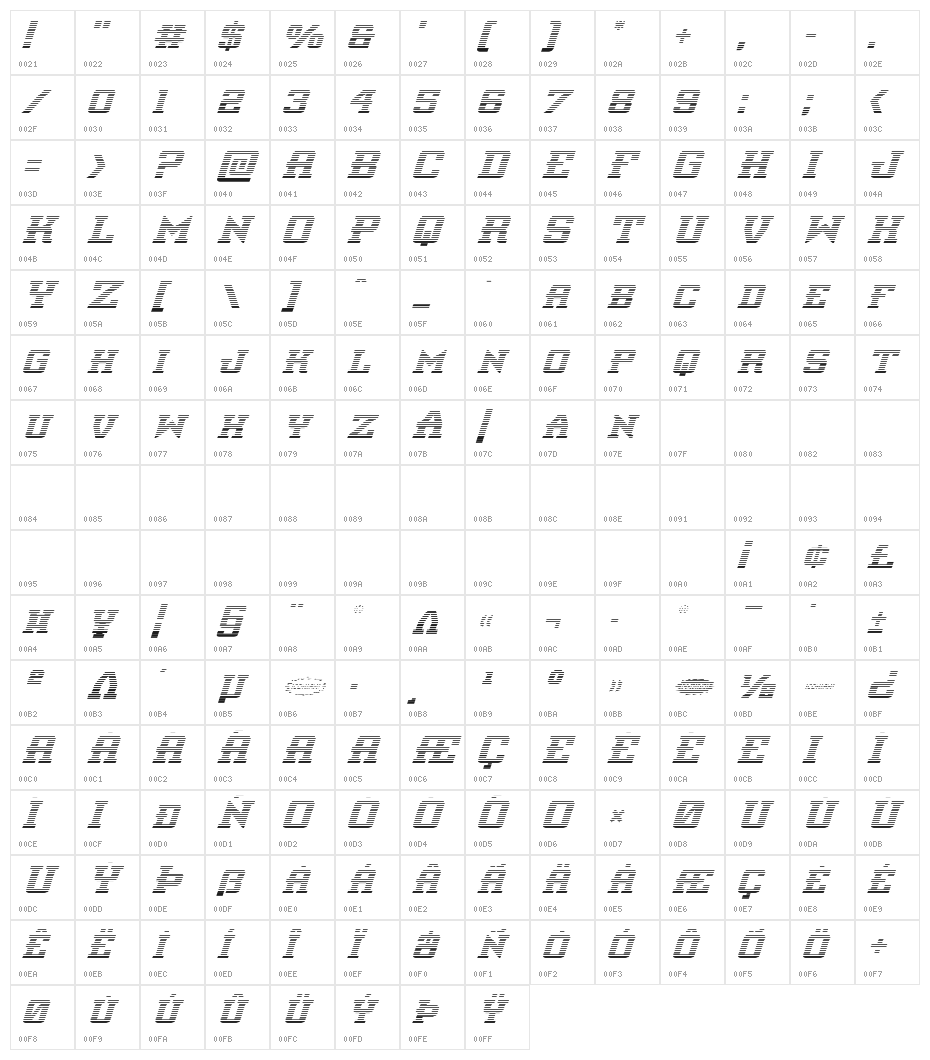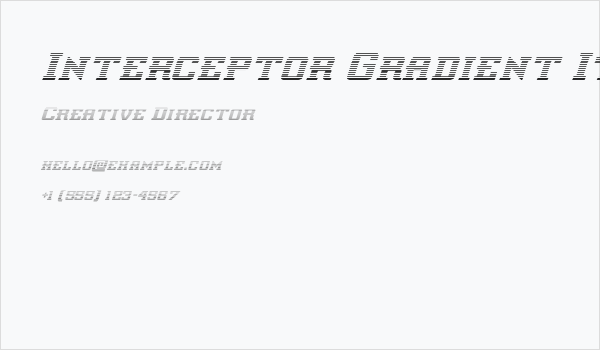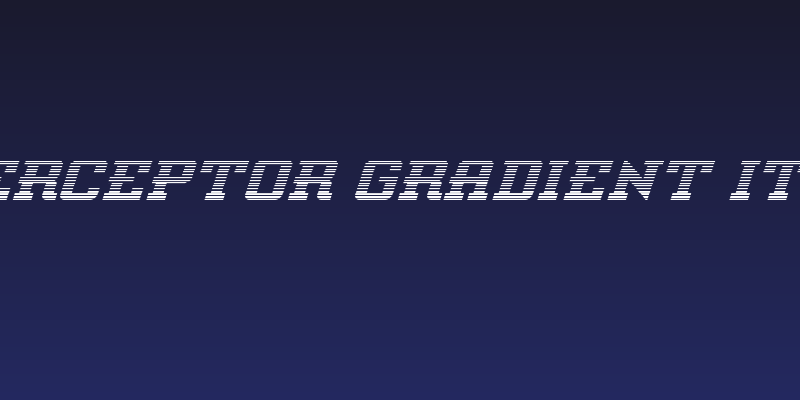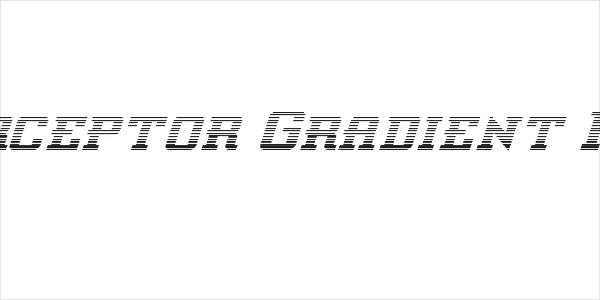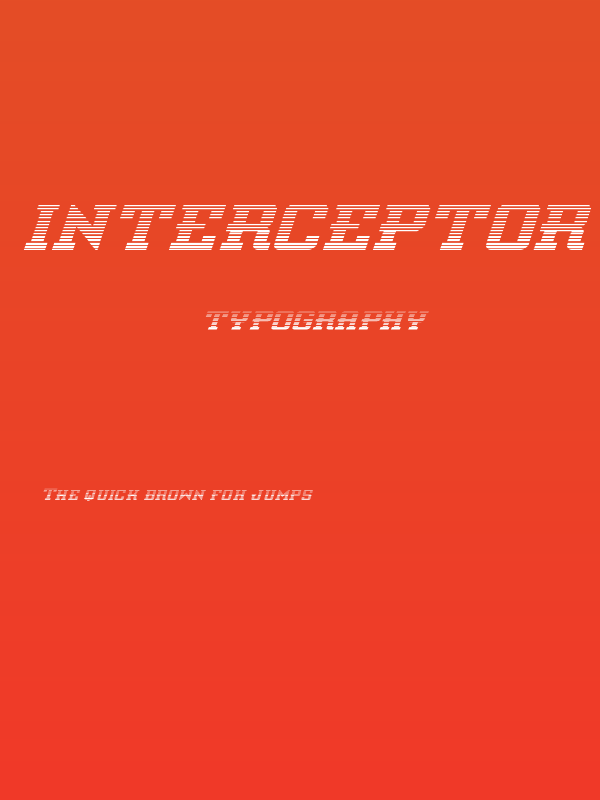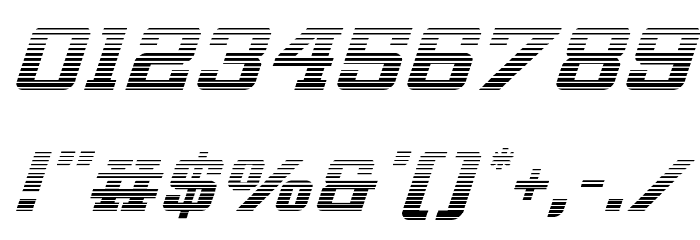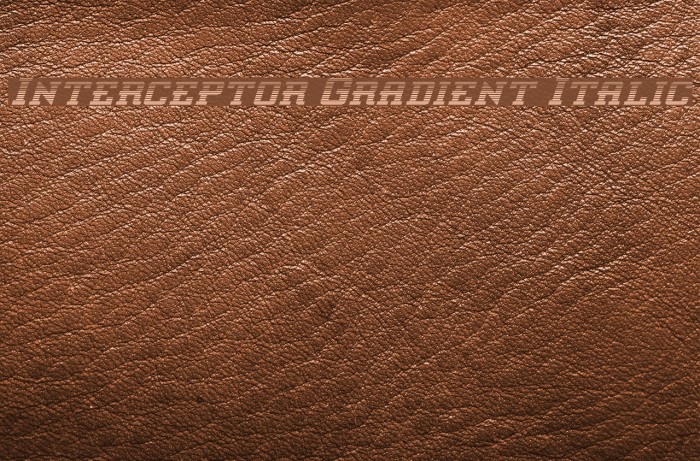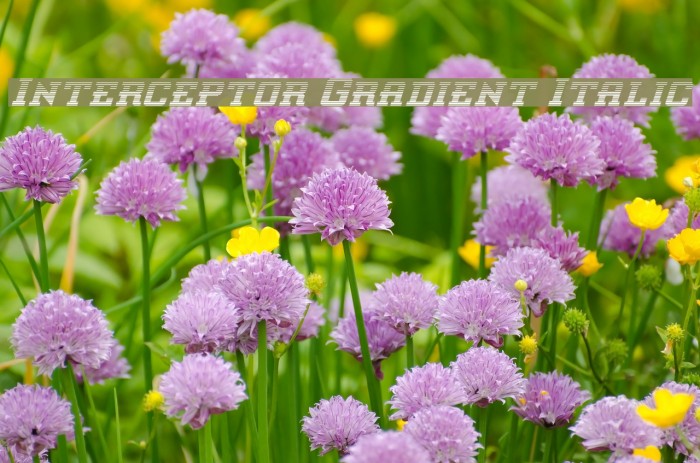
Interceptor Gradient Italic Font
Interceptor Gradient Italic Description
This font features a dynamic and bold design with a distinct gradient effect that gives it a sense of movement and energy. The italicized style adds a forward-leaning appearance, enhancing its modern and futuristic look. Each character is composed of horizontal lines that create a striped pattern, contributing to its unique aesthetic. The uppercase and lowercase letters maintain a consistent style, while the numerals and special characters are designed to match the overall theme. This font is ideal for projects that require a strong visual impact and a contemporary feel.
| Proposed Projects | Ideal for sports branding, tech-related designs, futuristic posters, and dynamic advertising campaigns. |